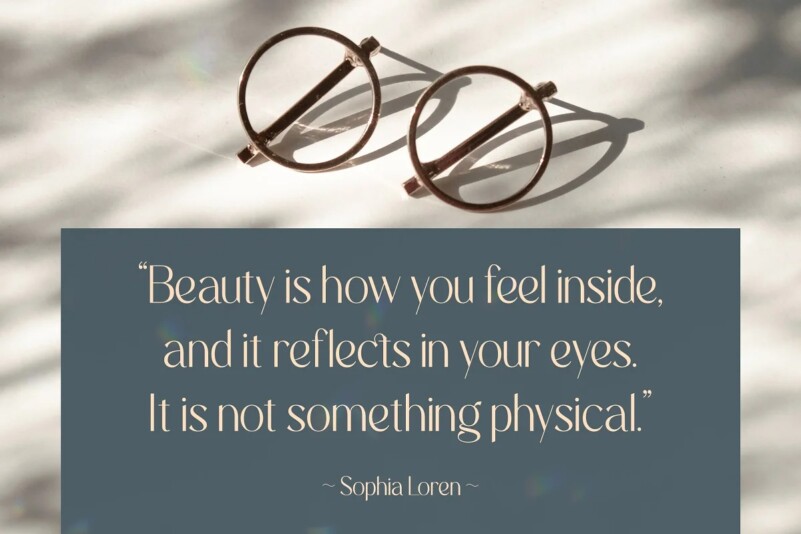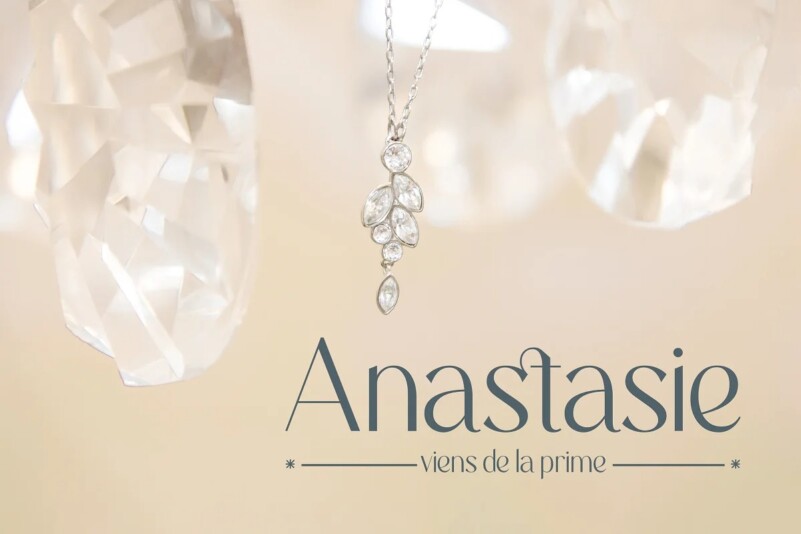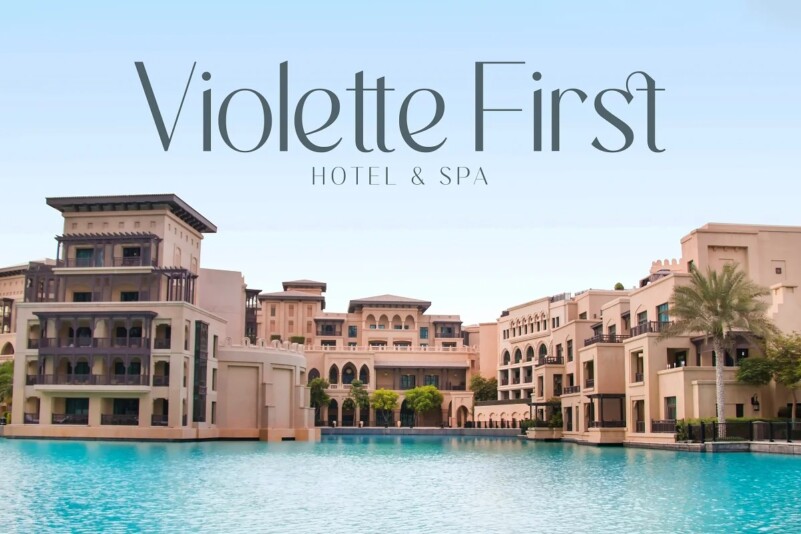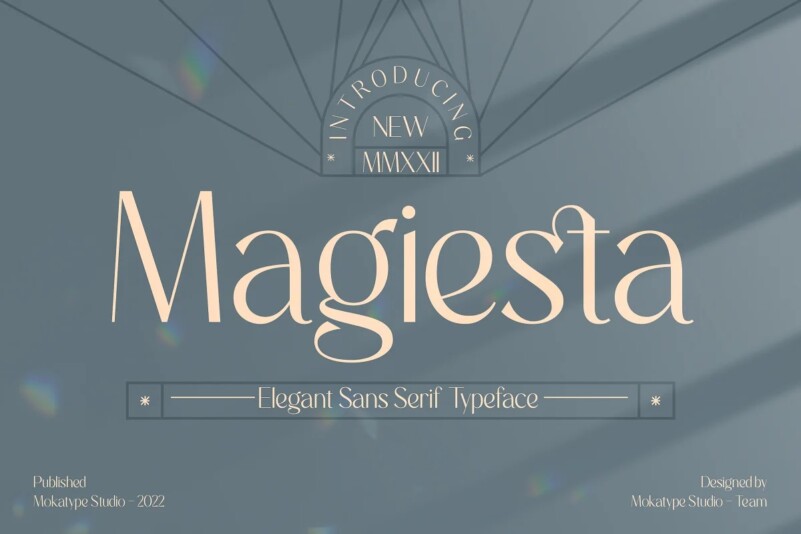
Magiesta Font
Magiesta Sans Serif Font is aesthetic modern font with alternates & ligatures. Its stylish and modern design give it a minimalist and classy feel. Perfect for adding a unique twist to word-mark logos, monograms, or pull quotes. Magiesta has 7 ligatures making it super fantastic. Ligature can be turned off if required standard writing needs.